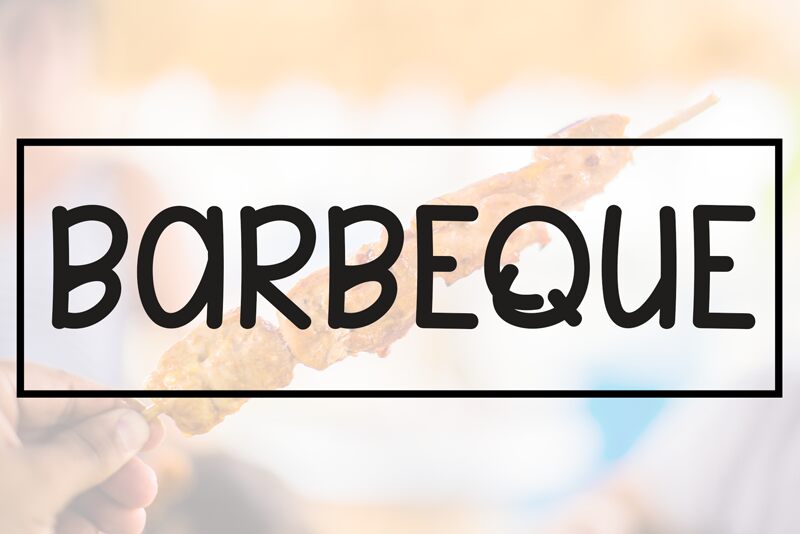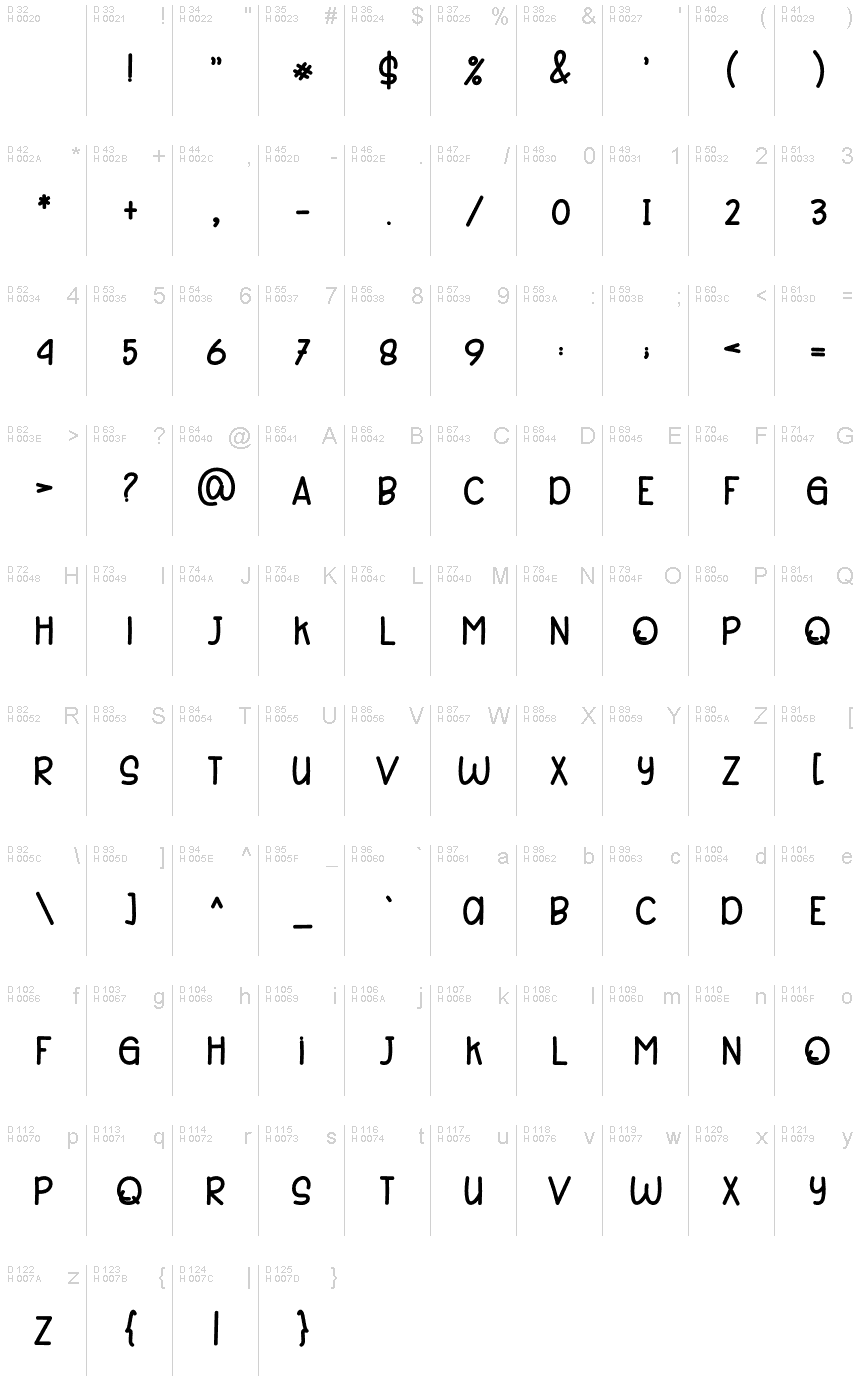
Barbeque
Barbeque, a handwritten font crafted by Etik Fatimah, exudes a semi-light charm that captivates at first glance. Its fluid, organic strokes suggest the spontaneity of ink on paper, making it an ideal choice for designers seeking to imbue their projects with a touch of personal flair. The Barbeque font balances casual elegance with readability, ensuring that its aesthetic appeal enhances the message without overwhelming it.
With its distinct yet versatile style, Barbeque is perfectly suited for branding projects, invitations, and editorial work where a human touch is desired. Whether applied to a cozy café's menu or the pages of a boutique's lookbook, this font promises to deliver warmth and character in equal measure.